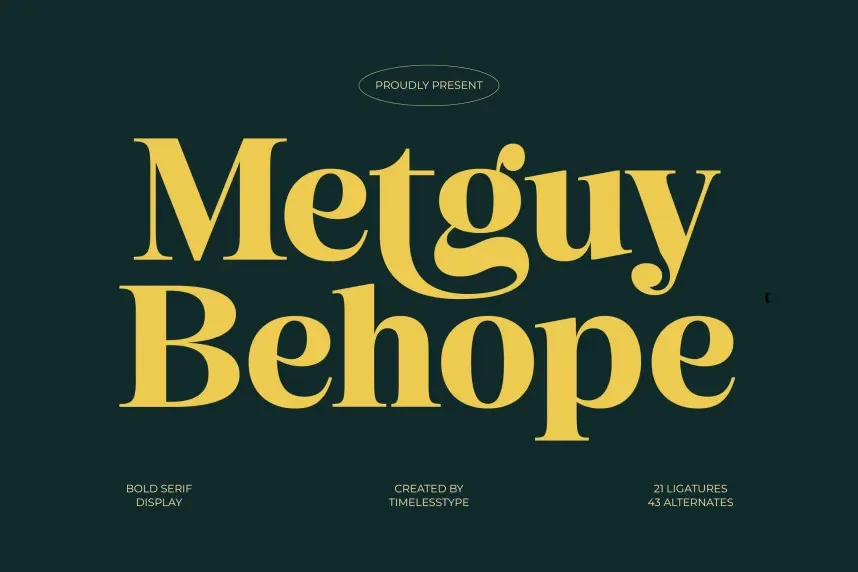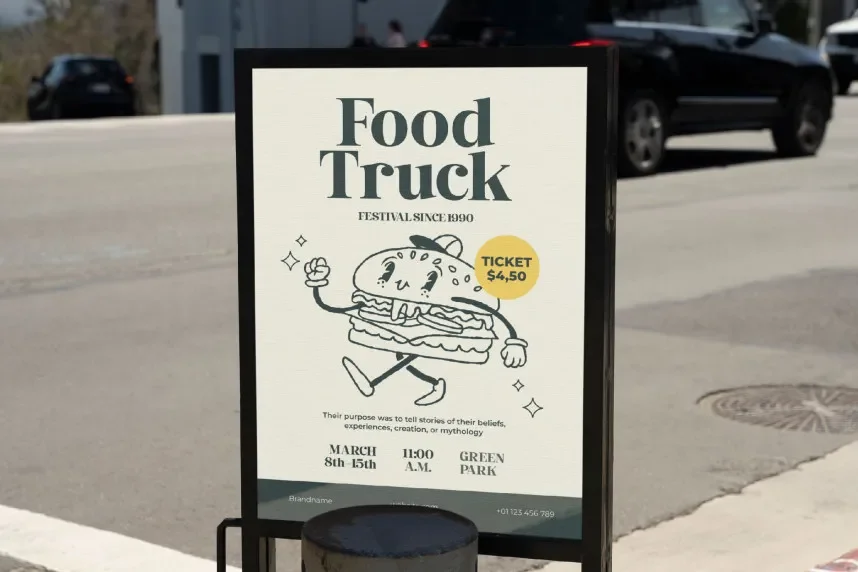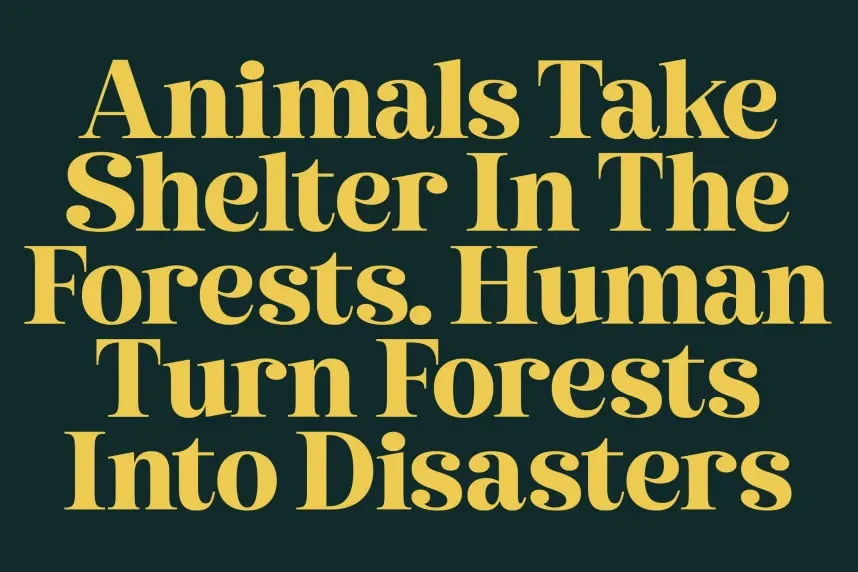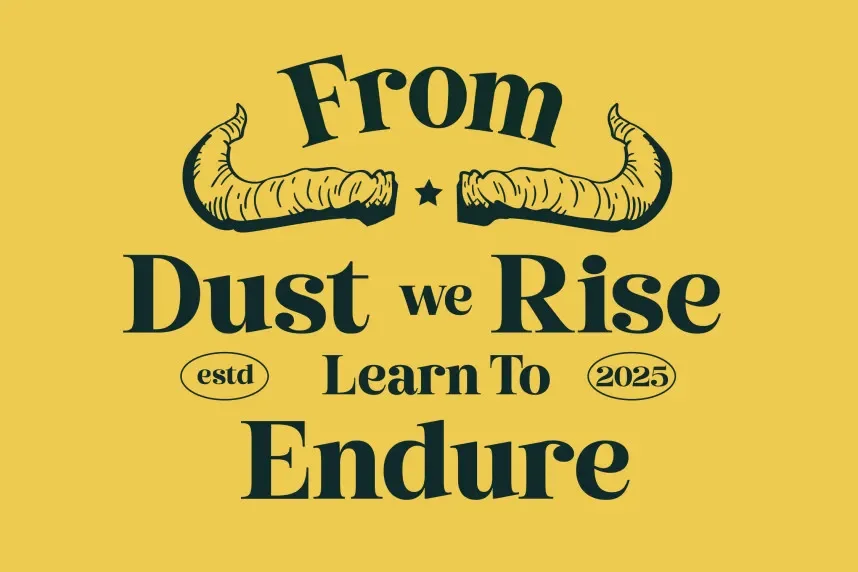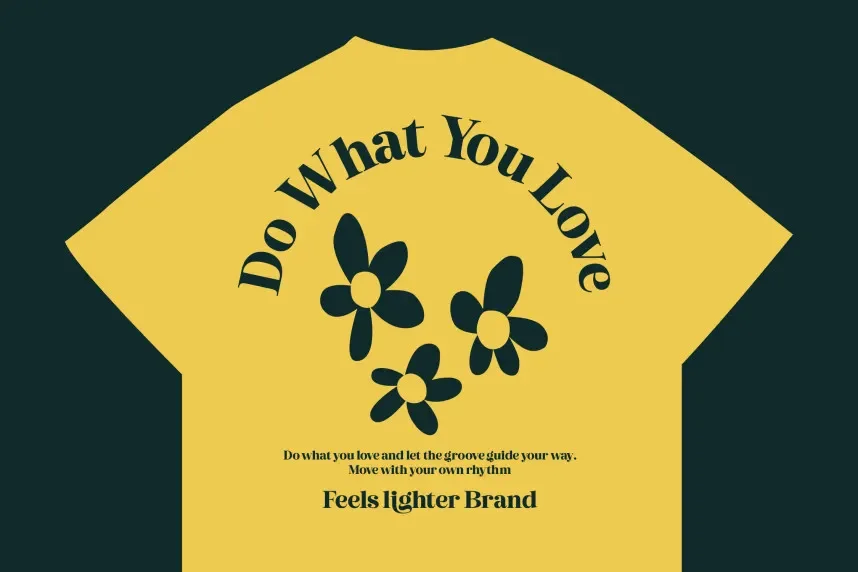
Metguy Behope Font is a script typeface created for designers who need a handwritten look without sacrificing clarity. Script fonts like Metguy Behope address a common need in branding and social media design: adding a personal, human tone to visual content.
Metguy Behope follows a modern signature-style script structure. The letterforms are fluid, with smooth connecting strokes and a natural writing rhythm. Stroke weight remains relatively consistent, avoiding extreme contrast that can reduce legibility. Subtle curves and rounded terminals give the font an informal but controlled appearance, suitable for short text elements rather than long paragraphs.
This font is commonly used for logo marks, personal branding, Instagram posts, wedding invitations, greeting cards, and digital signatures. It performs best in headings, names, quotes, and callouts where personality is more important than dense readability. For balanced layouts, Metguy Behope pairs well with clean sans-serif fonts in body text, helping maintain clarity across websites, UI components, and printed materials.